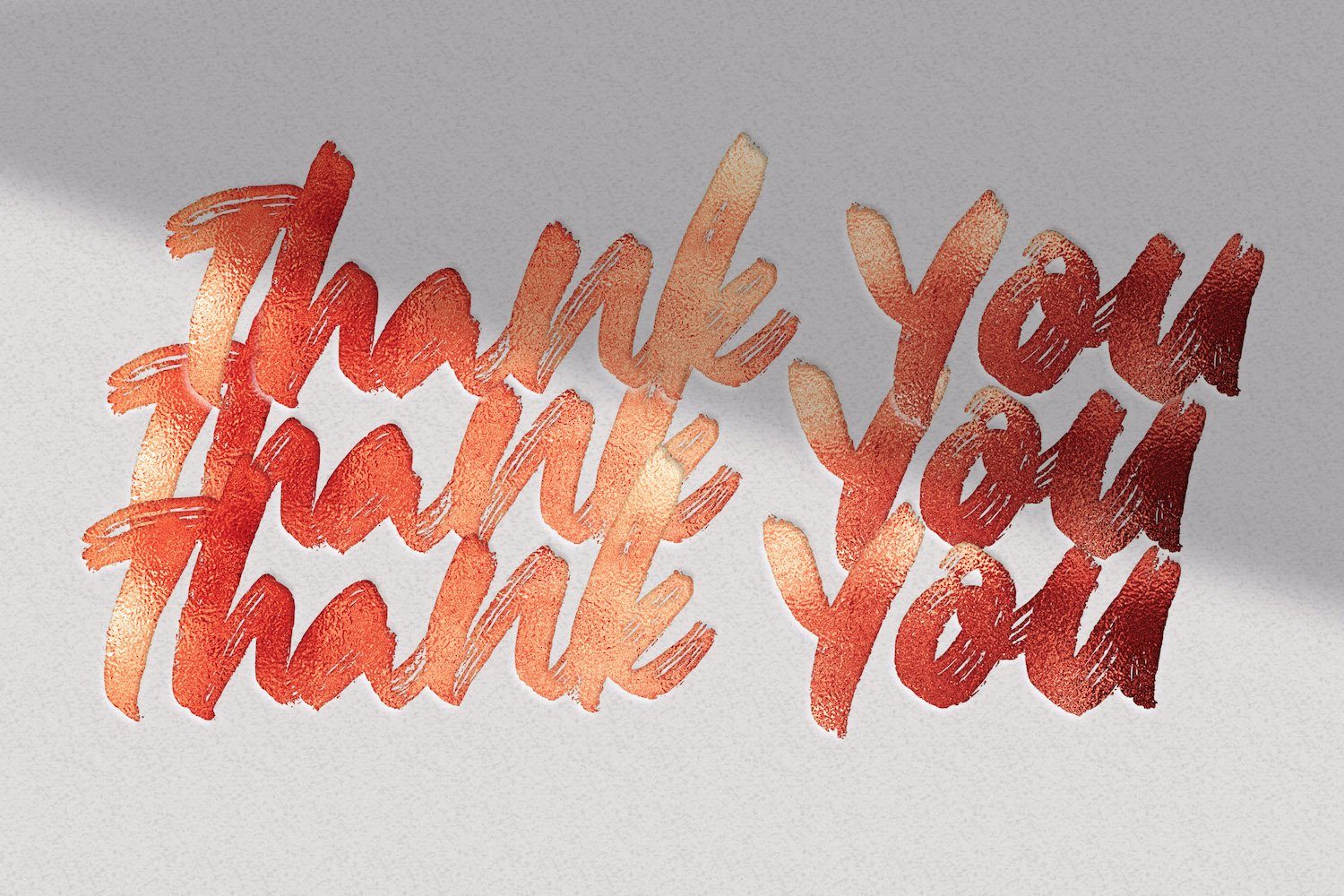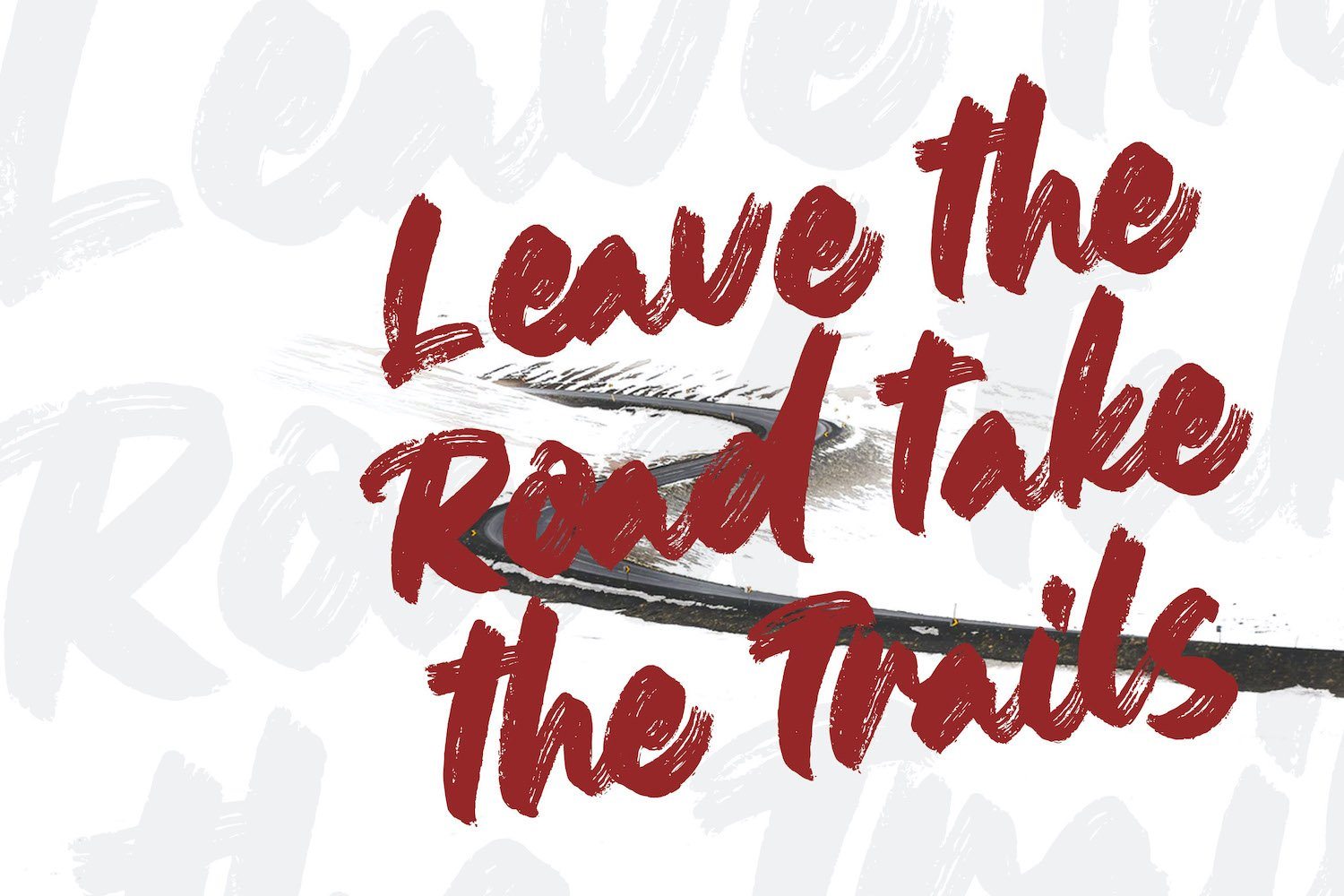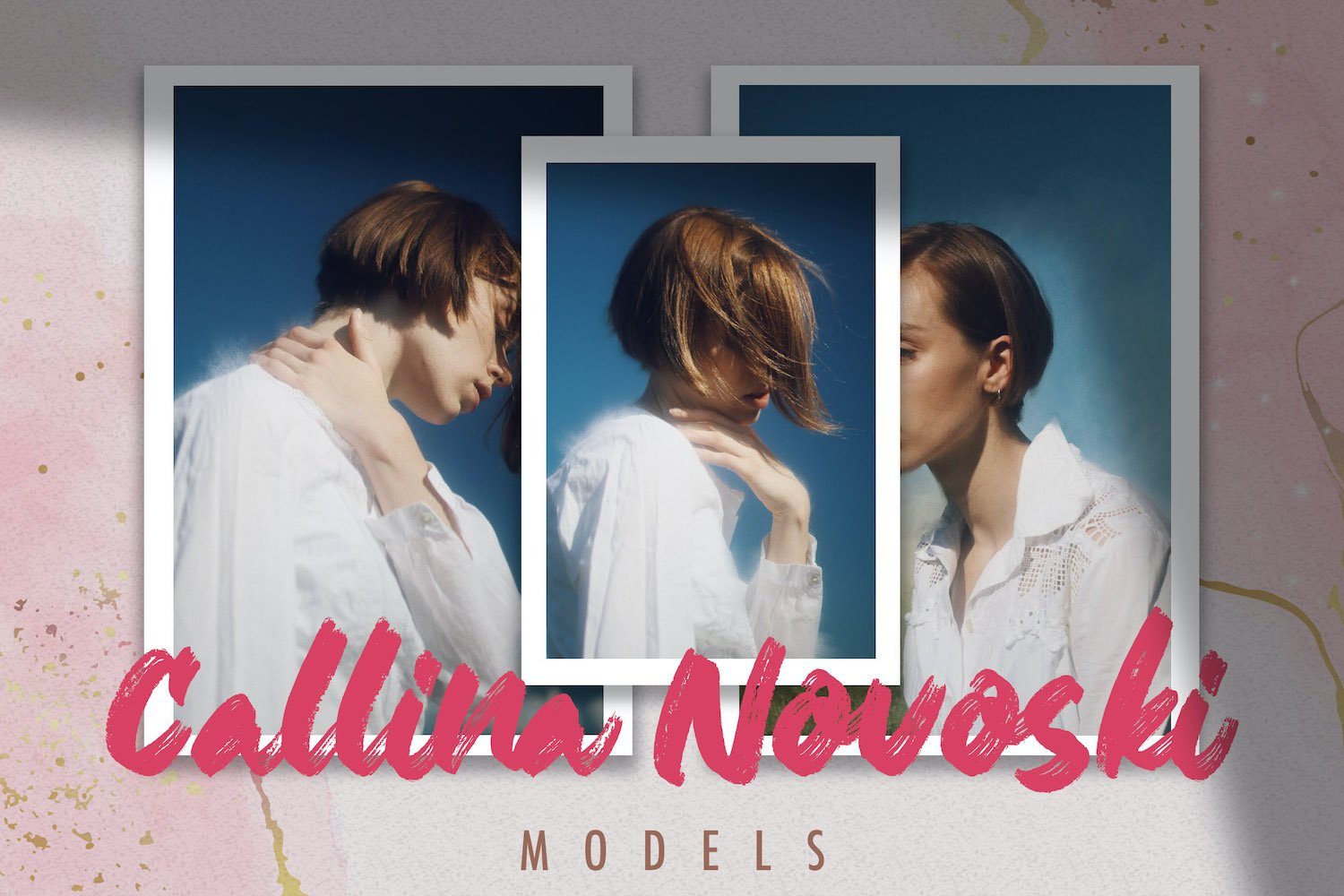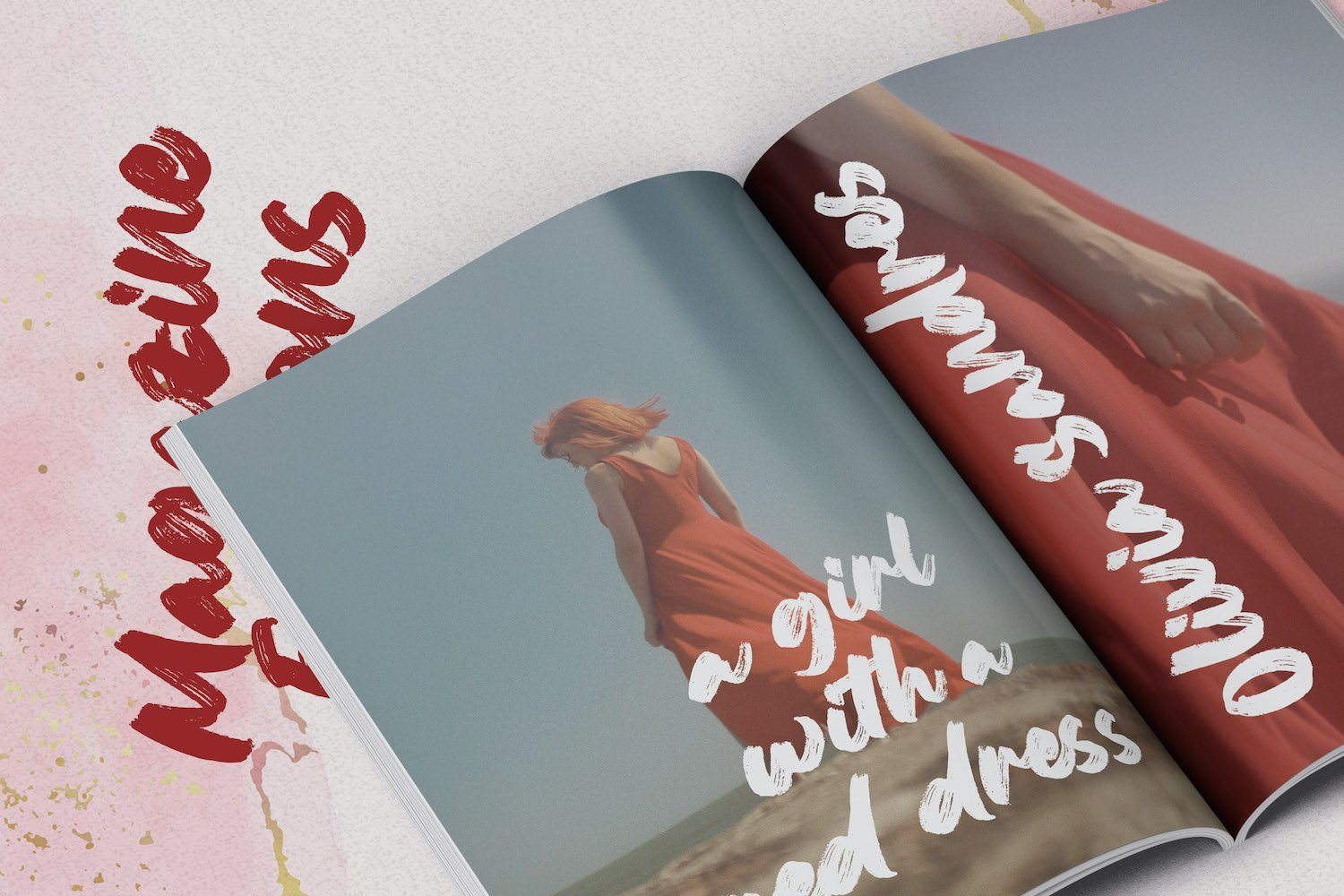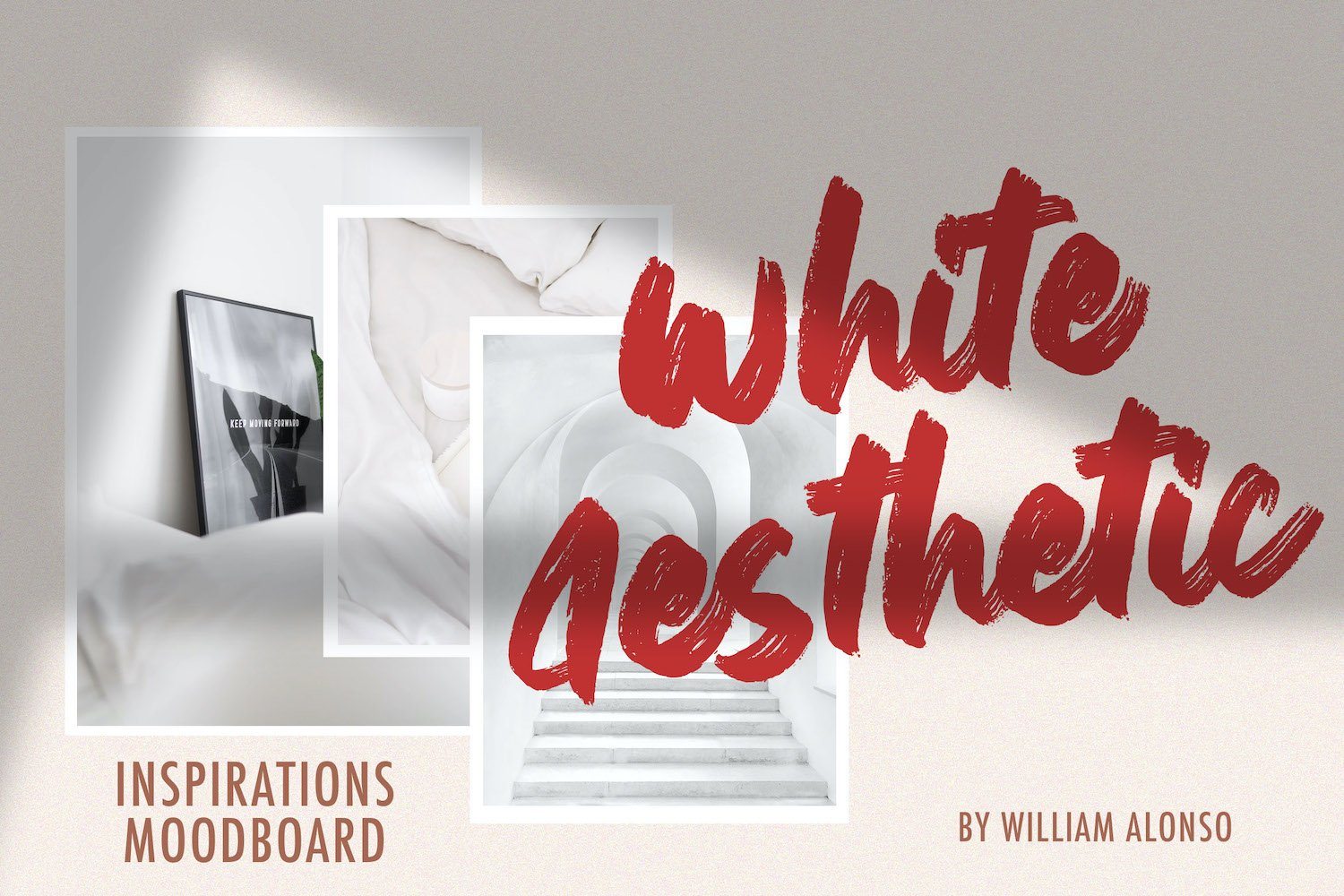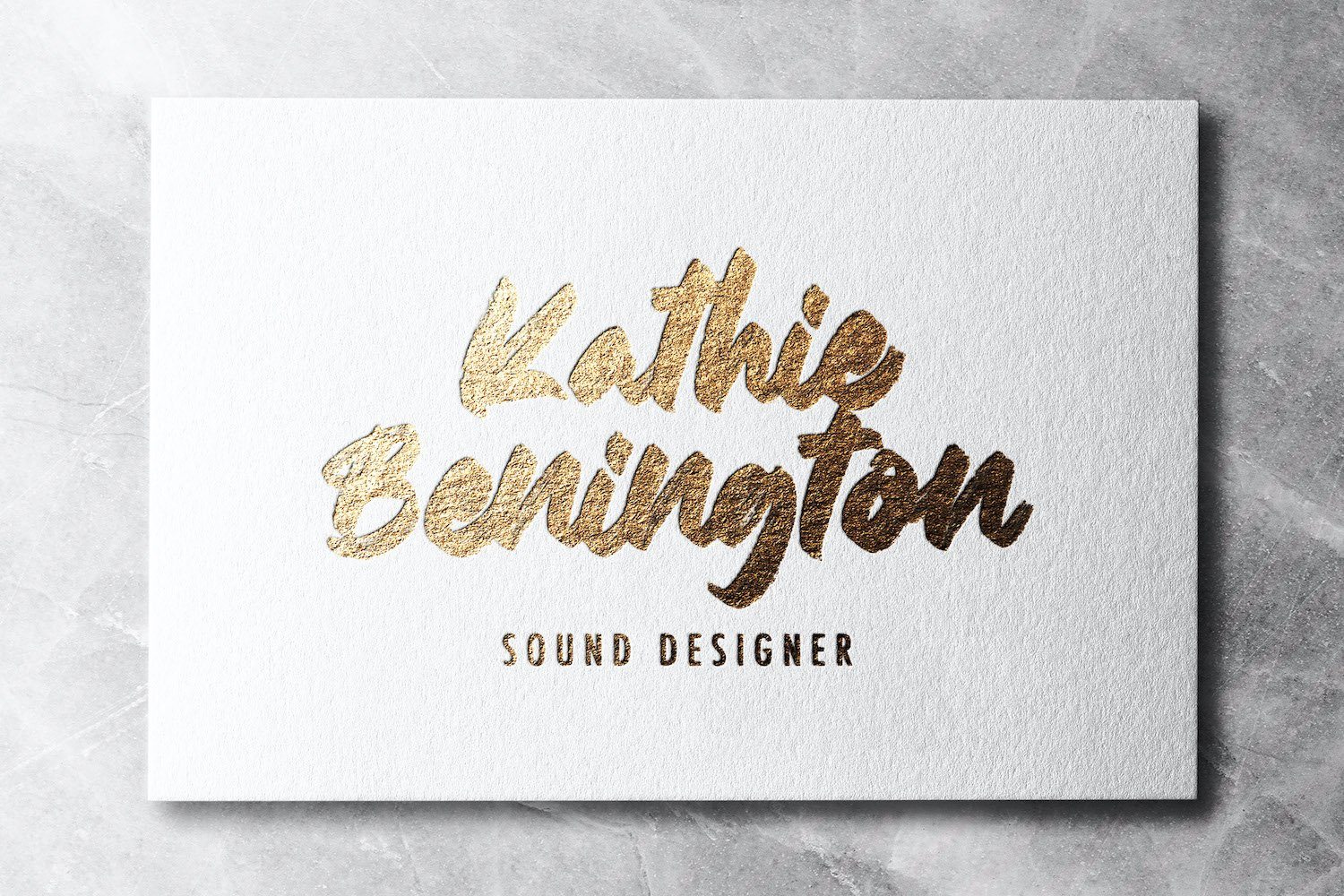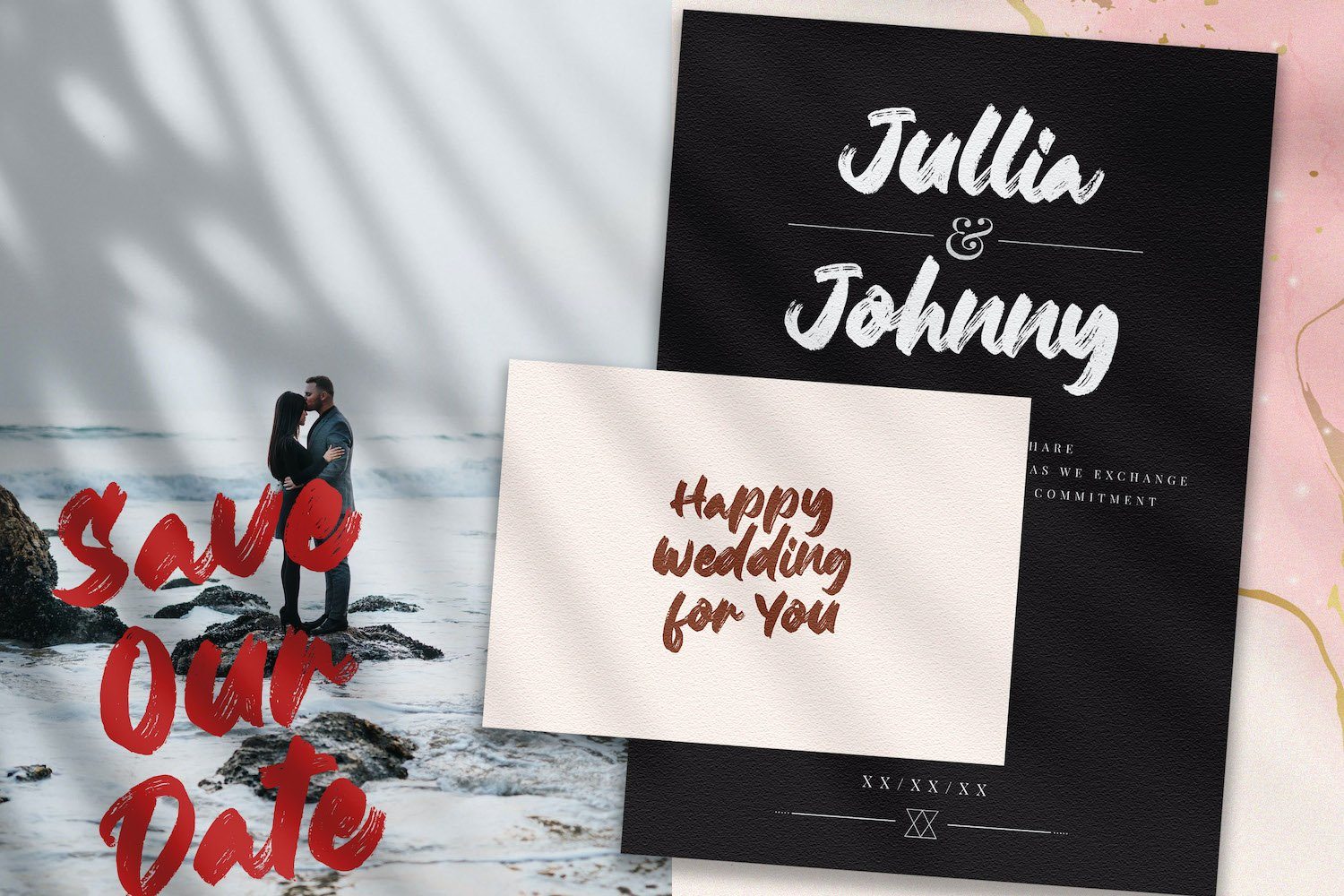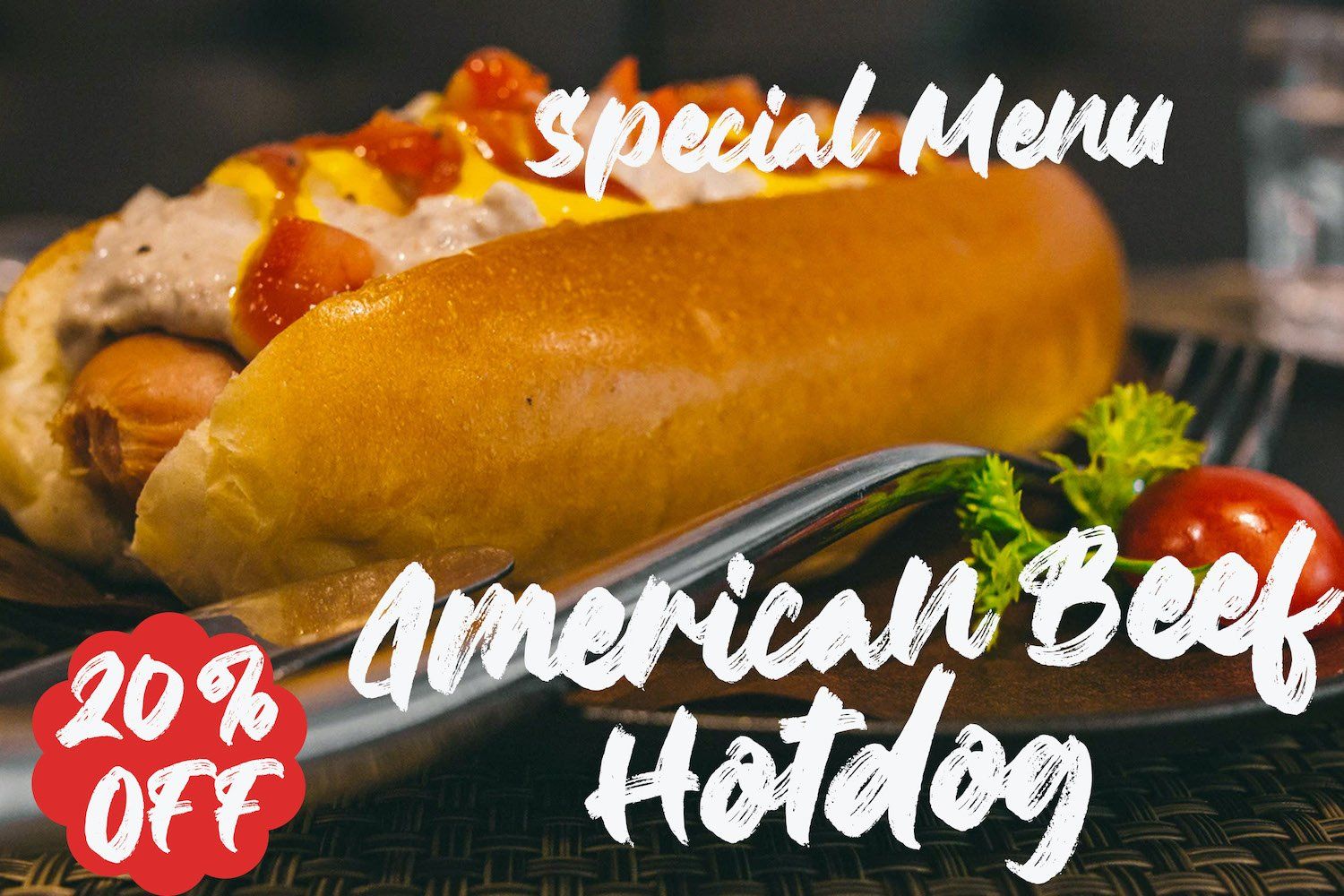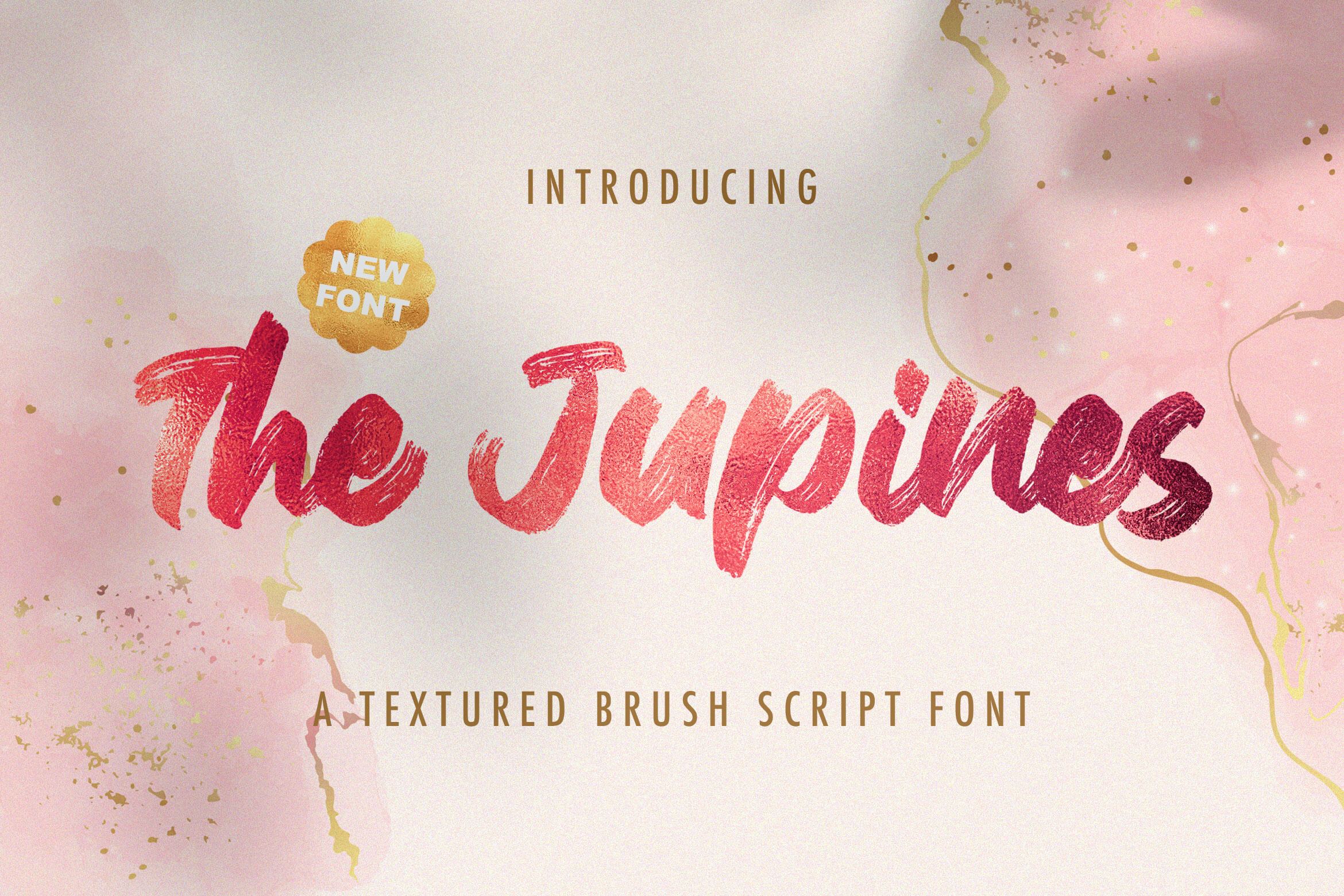
The Junipes – Textured Brush Font
About The Junipes – Textured Brush Font
Introducing The Junipes – Textured Brush Font The Junipes is a textured handbrush font. Get inspired by its unique and beautiful style and add it to your favorite designs! FEATURES – TTF/OTF/WOFF/WOFF2 – Alternates – Ligatures – Uppercase and Lowercase letters – Numbering and Punctuations – Multilingual Support – Works on PC or Mac – Simple Installation – Support Adobe Illustrator, Adobe Photoshop, Adobe InDesign, also works on Microsoft Word Hope you Like it. Thanks.